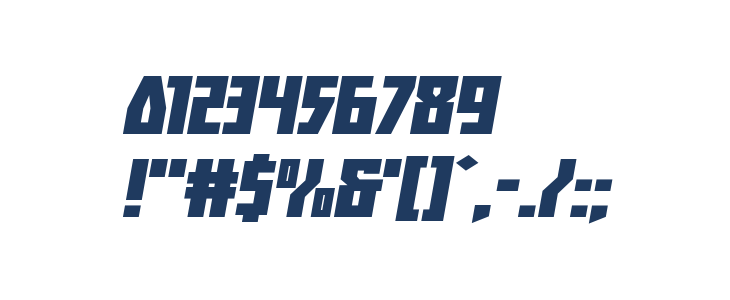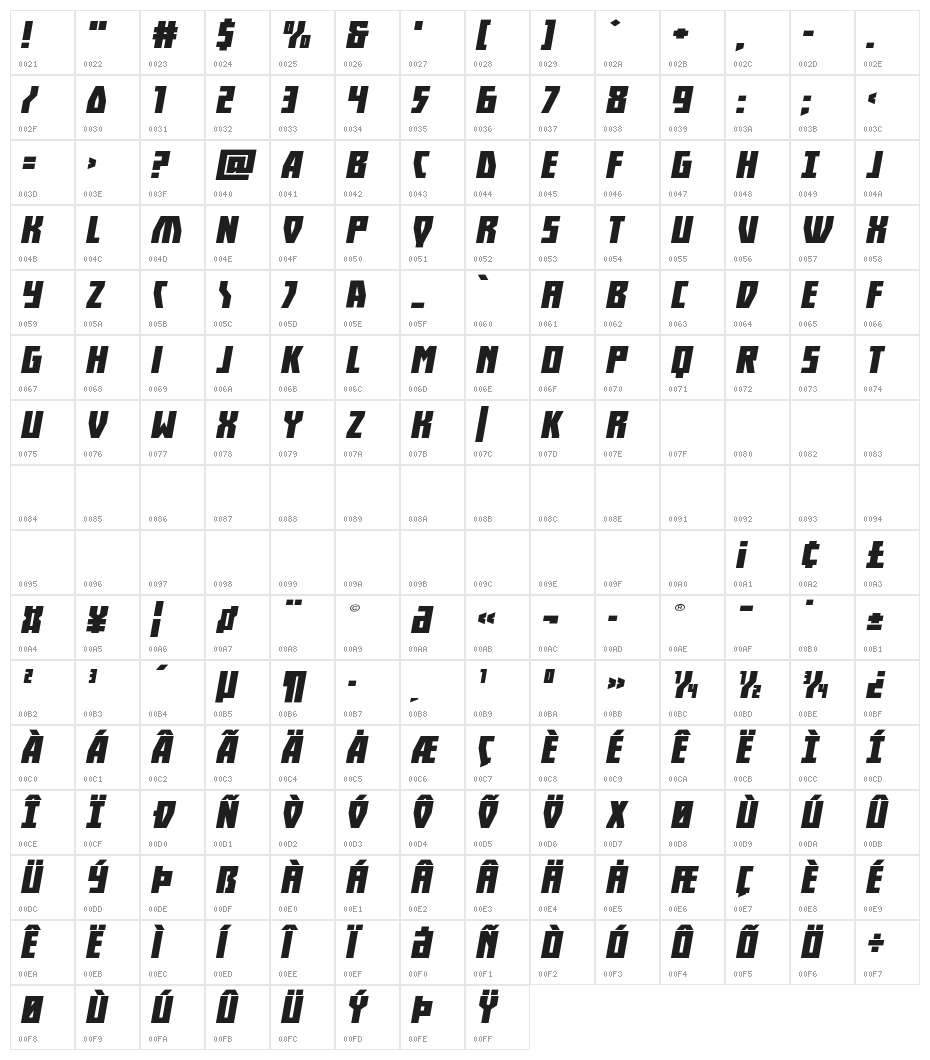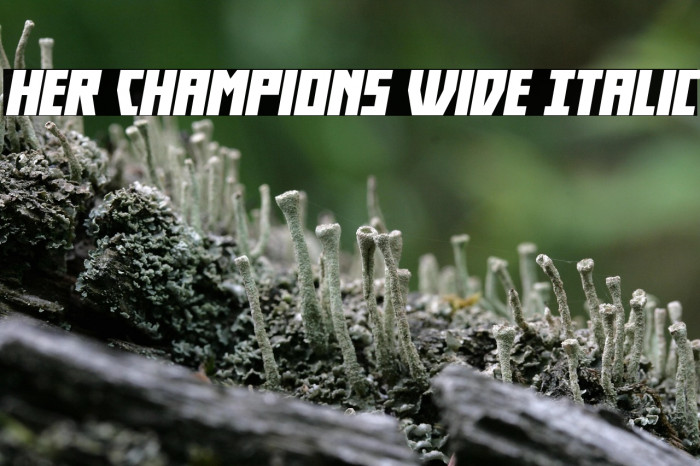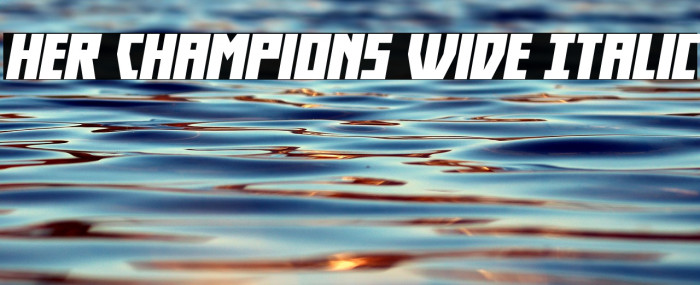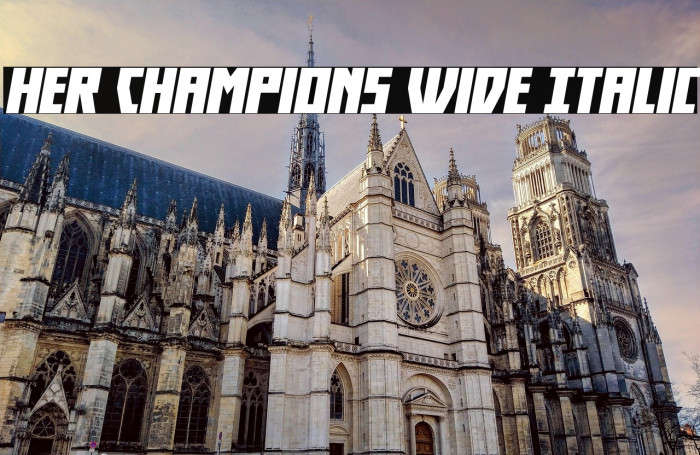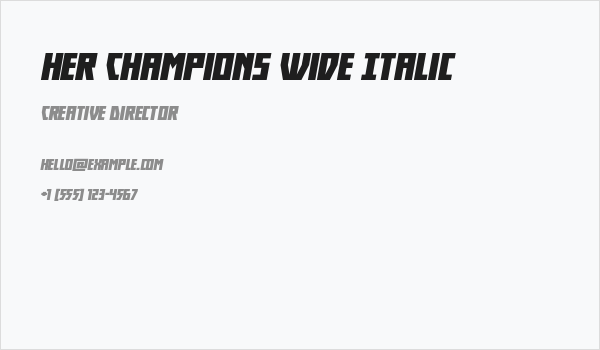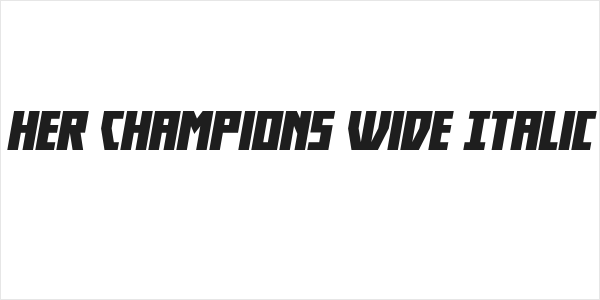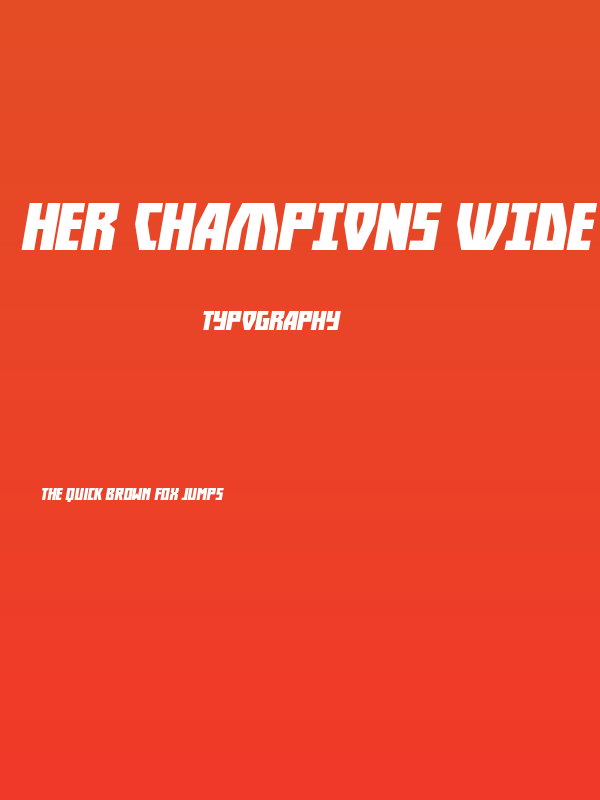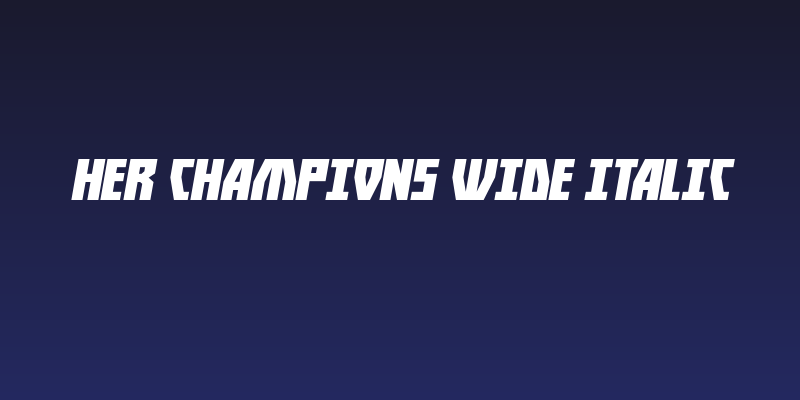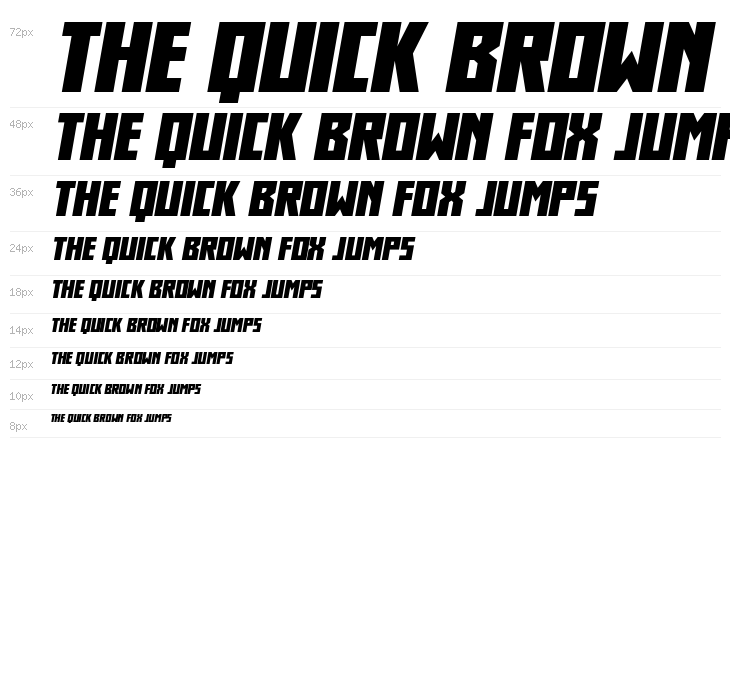
Her Champions Wide Italic Font
Her Champions Wide Italic Description
This font features a bold and dynamic style with a wide stance and italic slant, giving it a strong and assertive presence. The characters are angular and geometric, with sharp edges and a futuristic feel. The uppercase and lowercase letters maintain a consistent width, enhancing readability while adding a unique flair. The numbers and special characters follow the same design principles, ensuring uniformity across all elements. This font's boldness and wide spacing make it ideal for attention-grabbing designs.
| Proposed Projects | Perfect for sports branding, posters, headlines, and any project requiring a strong, modern aesthetic. |